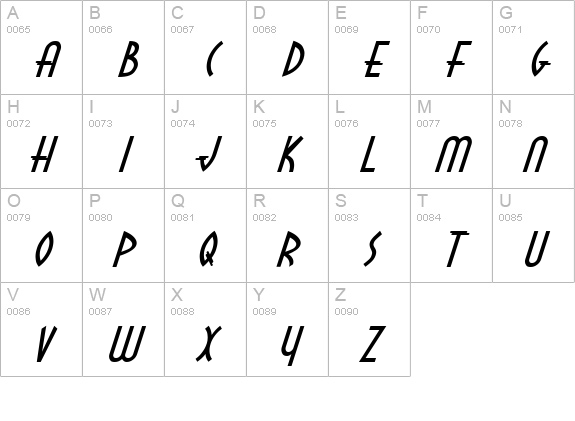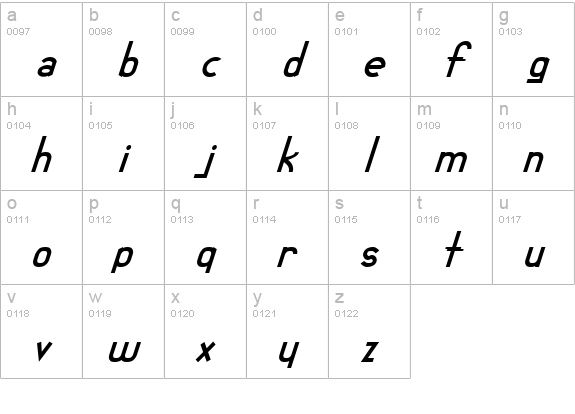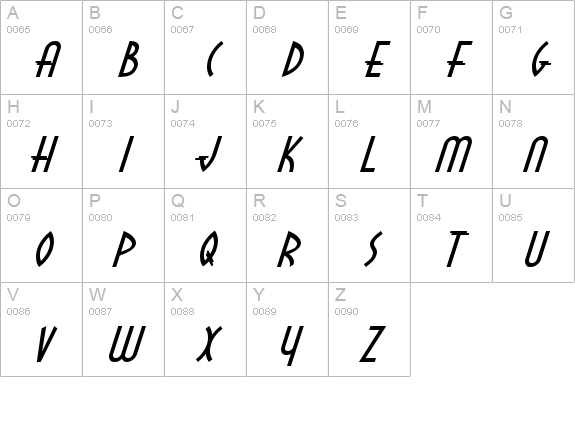
DollarItalic Font Details
DollarItalic is a sleek and modern font that exudes sophistication and elegance. Its unique design features subtle curves and stylish letterforms that make it perfect for adding a touch of luxury to any project. Whether you're designing a logo, creating a poster, or crafting a website, DollarItalic is sure to make a lasting impression. Best of all, DollarItalic is available for free download at FontsMarket.com. This means you can easily access this stunning font and use it in your designs without any cost. Don't miss out on the opportunity to enhance your creative projects with the beauty and versatility of DollarItalic. Download it today and elevate your designs to the next level.